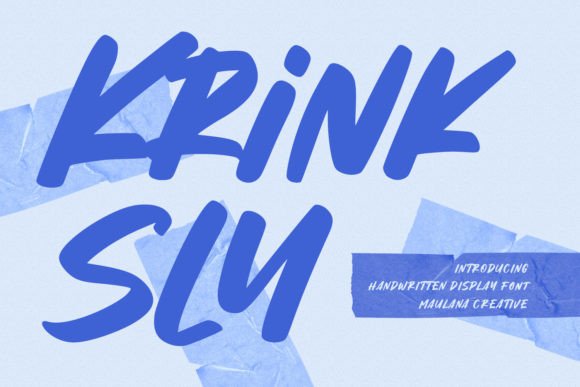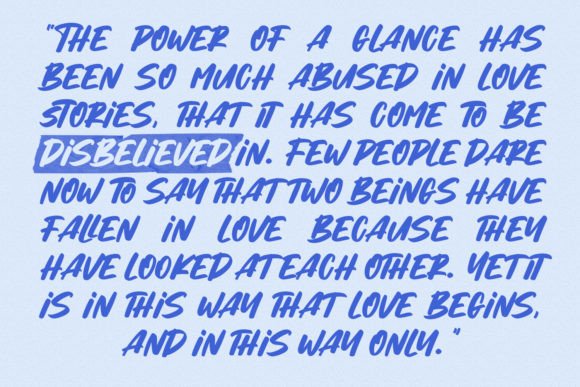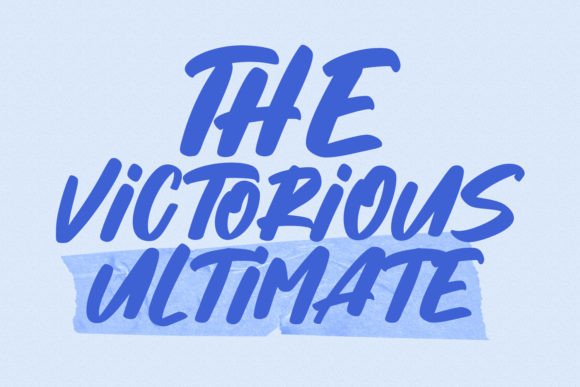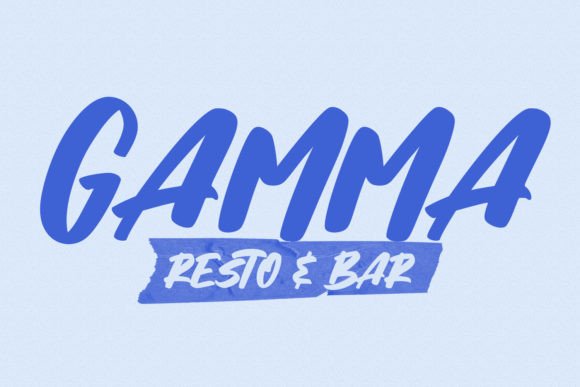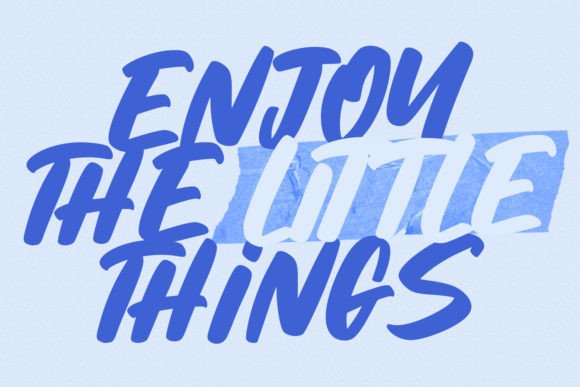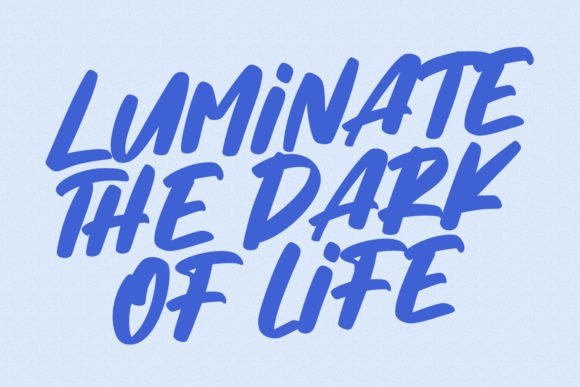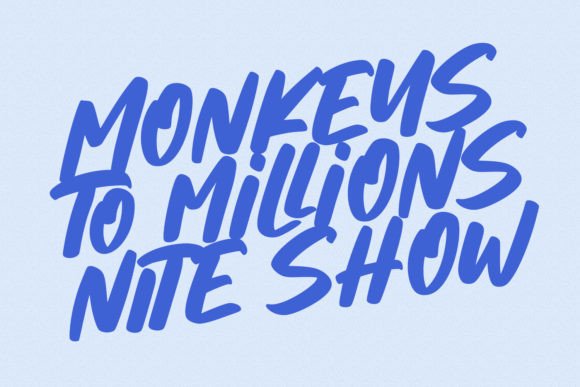
About Krinksly Font
Krinksly is a fancy and cool handwritten display font. A little bit quirky, this font looks incredibly adept in a wide variety of contexts!